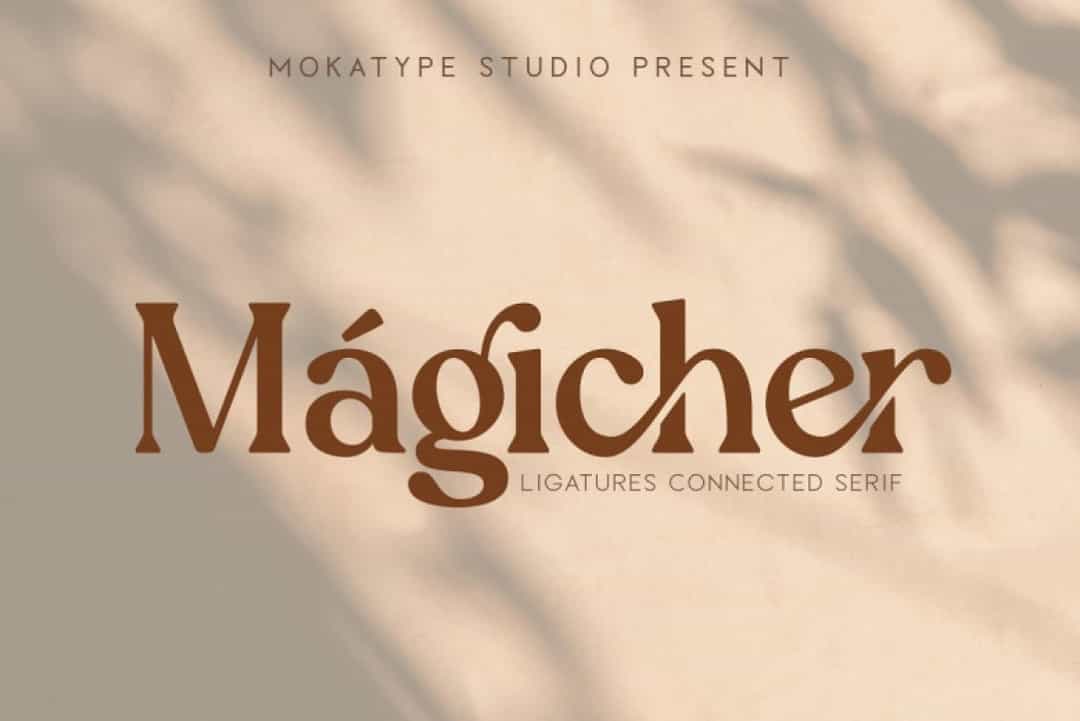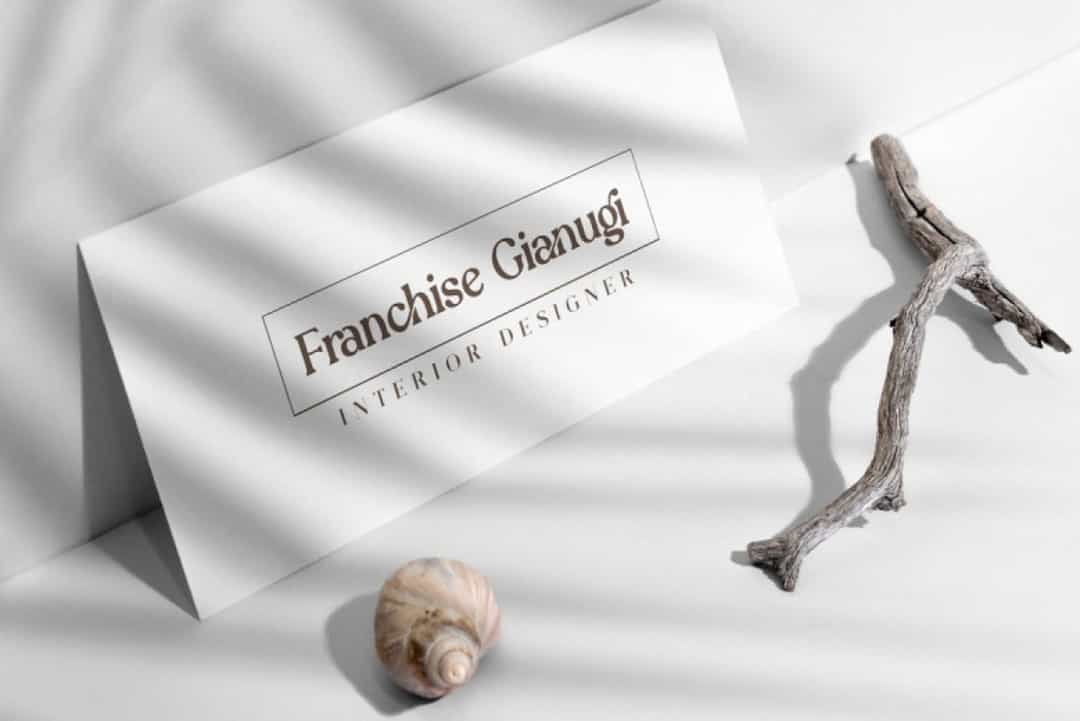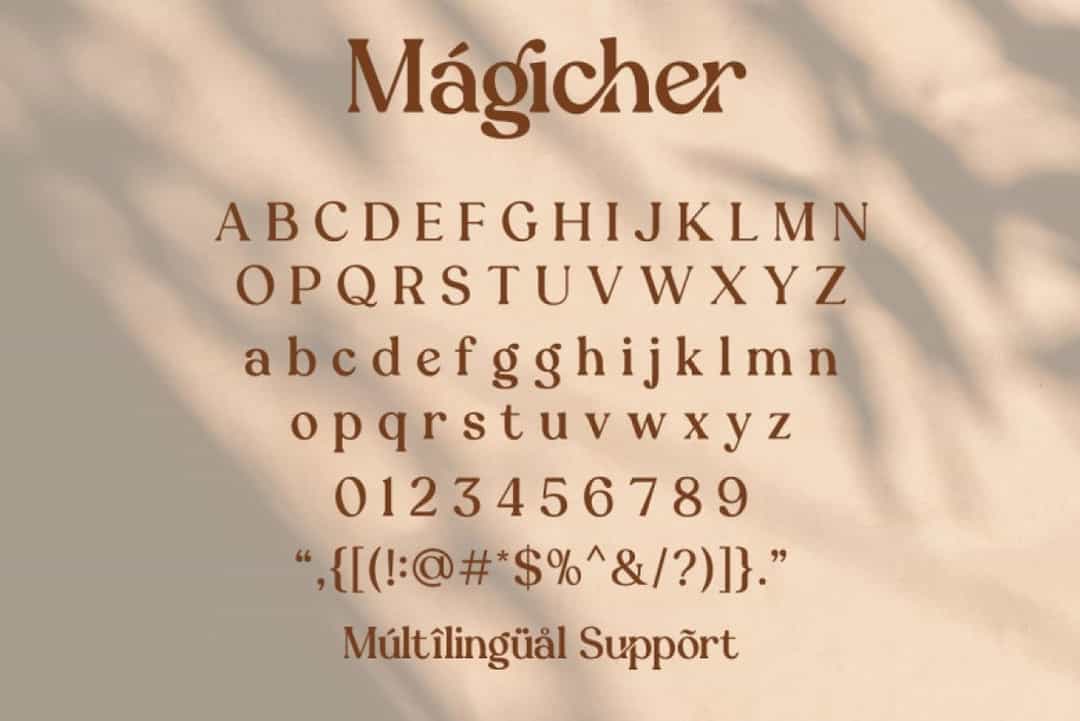
Discover Magicher Font, part of the Serif collection—a versatile and unique font perfect for adding a personal touch to your projects. Download it for free and enjoy crafting designs with style, from invitations to social media posts. This font is available exclusively for personal use, giving you the freedom to create without limits. Unlock your creativity with Magicher Font today!
Magicher Serif Font Ligatures Connected-Serif is an elegant font which uses ligatures for seamless linking of letters. Perfect for word marks, monograms and pull quotes!